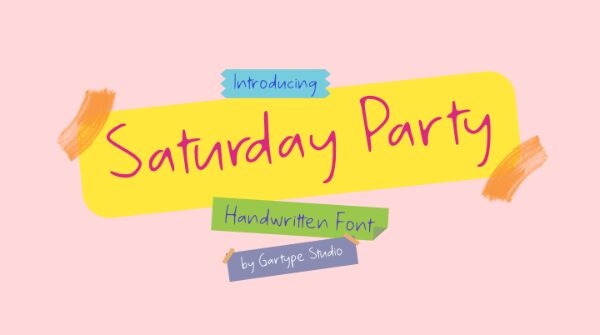
Saturday Party GT font is a casual handwritten typeface designed by Gumilang Anggara Ruslan of Gartype Studio.
Saturday Party GT Demo
Gartype Studio
Gumilang Anggara Ruslan